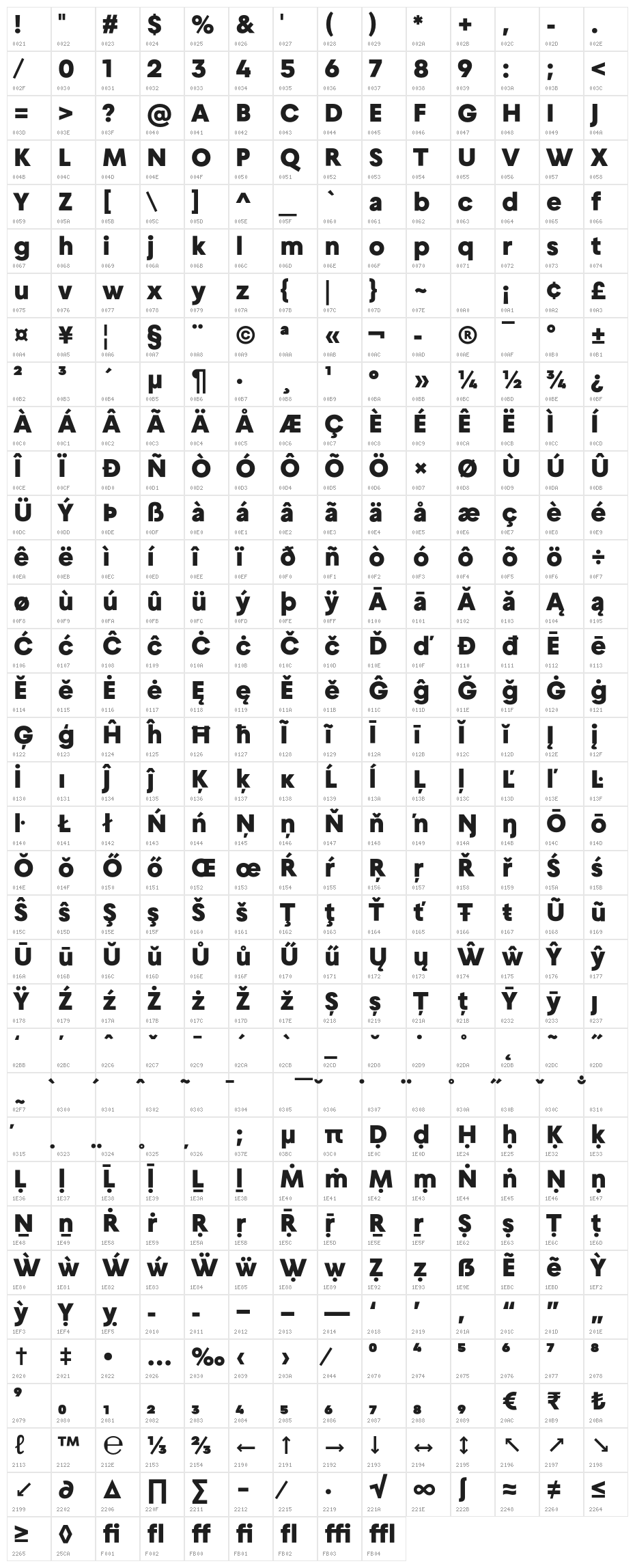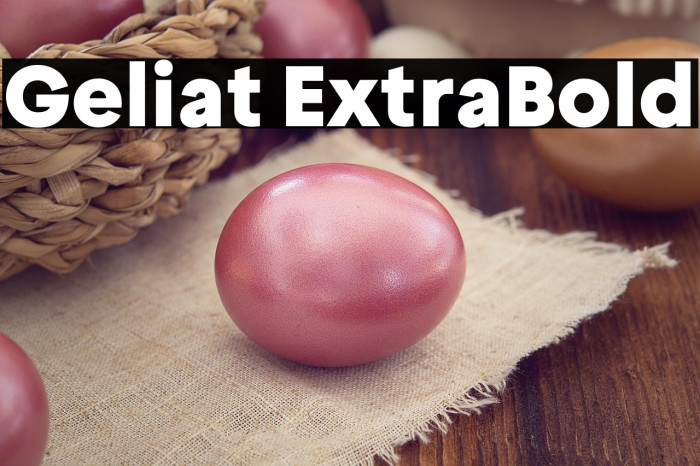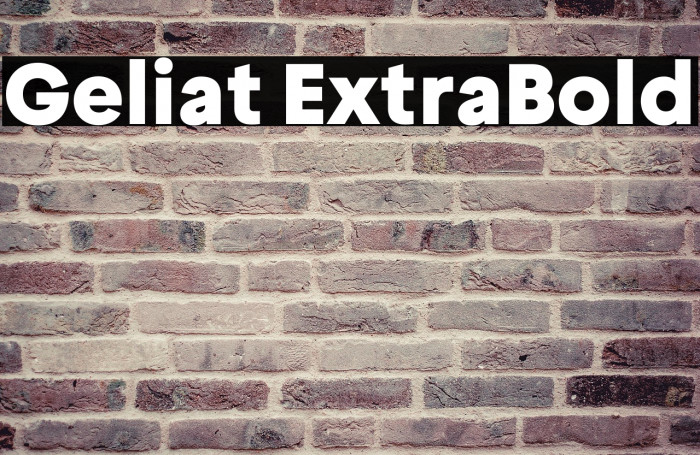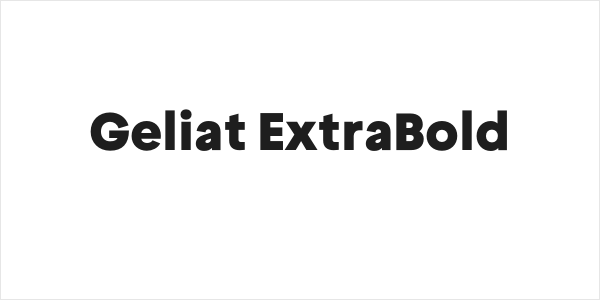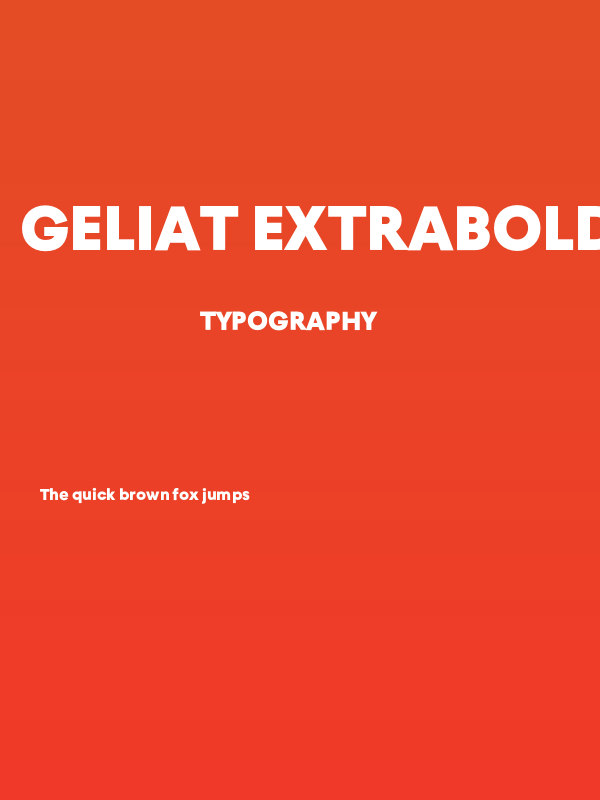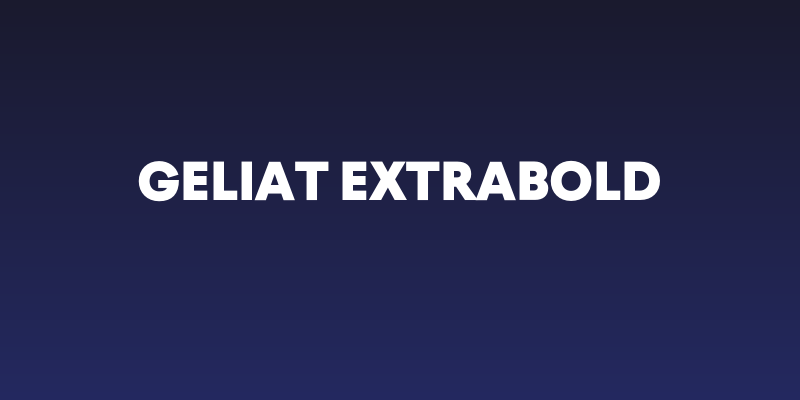
Geliat ExtraBold Font
Geliat ExtraBold Description
This font features a bold and robust design, characterized by thick strokes and a strong presence. The uppercase and lowercase letters are well-balanced, with a consistent weight that conveys a sense of stability and confidence. The numerals are clear and easily distinguishable, making them suitable for various applications. The special characters are designed with the same boldness, ensuring uniformity across all glyphs. This font's simplicity and strength make it versatile for both digital and print media.